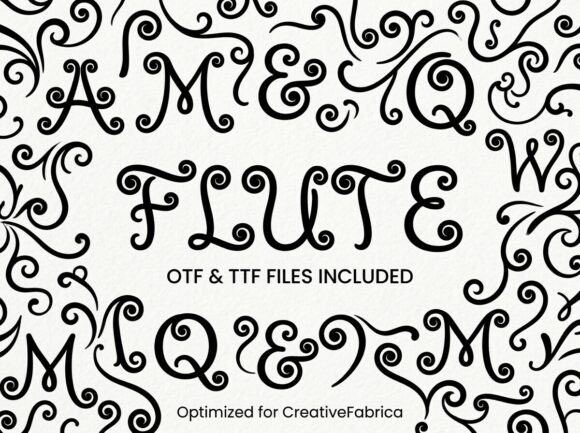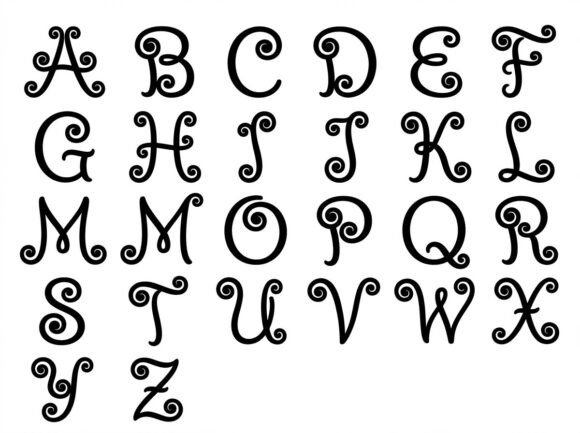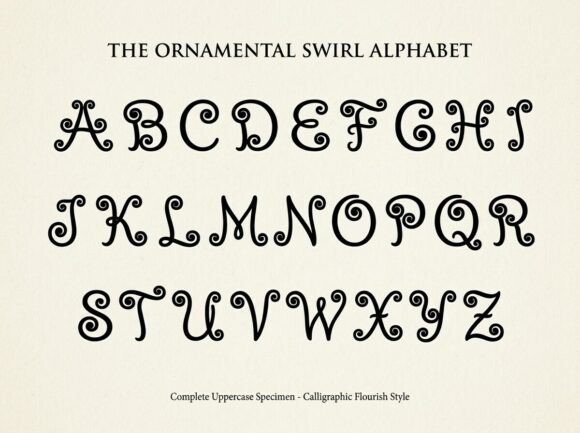
Introducing Flute Font: A Stunning Decorative Display Font
Are you tired of using the same old fonts for your designs? Do you want to add a touch of elegance and sophistication to your projects? Look no further than Flute Font, a beautiful decorative display font that’s sure to turn heads. In this article, we’ll take a closer look at Flute Font, its features, and how it can elevate your designs.
A Font that’s Truly One-of-a-Kind
Flute Font is a unique and artistic font that’s designed to be the center of attention. With its strong visual personality and decorative elements, this font is perfect for creators who want to break away from the ordinary. Whether you’re working on a bold headline, artistic logo, or creative packaging, Flute Font is the perfect choice.
Before you make a purchase, it’s essential to note that Flute Font is an ALL-CAPS (Uppercase Only) display typeface. This means that it does not include lowercase letters. However, this is by design, as Flute Font is specifically created for high-impact headlines, logos, and decorative initials where every letter is a work of art.
Flute Font is ideal for designers and crafters who want to add a touch of elegance and sophistication to their projects. Whether you’re working on:
- Headlines and titles
- Packaging and labeling
- Signs and banners
Flute Font is the perfect choice. Its unique and artistic design ensures that your projects will stand out from the crowd.
Tips for Using Flute Font
Here are some tips for getting the most out of Flute Font:
- Use it sparingly: Flute Font is a decorative font, so it’s best to use it sparingly to add emphasis and impact to your designs.
- Pair it with a simple font: Pair Flute Font with a simple font to create visual interest and hierarchy in your designs.
- Experiment with colors: Flute Font looks great in bold, bright colors, so don’t be afraid to experiment and find the perfect hue for your project.
Flute Font is a stunning decorative display font that’s perfect for designers and crafters who want to add a touch of elegance and sophistication to their projects. With its unique artistic elements and strong visual personality, this font is sure to turn heads. So why wait? Download Flute Font today and take your designs to the next level!